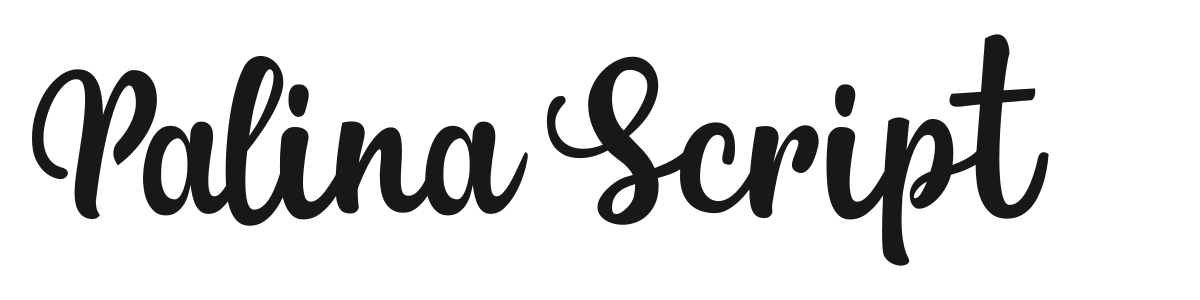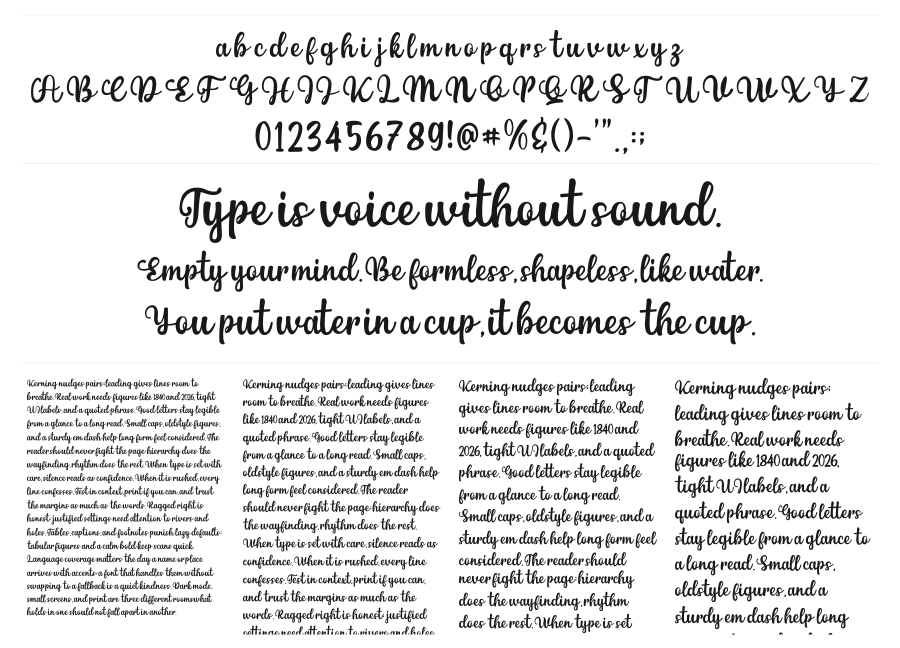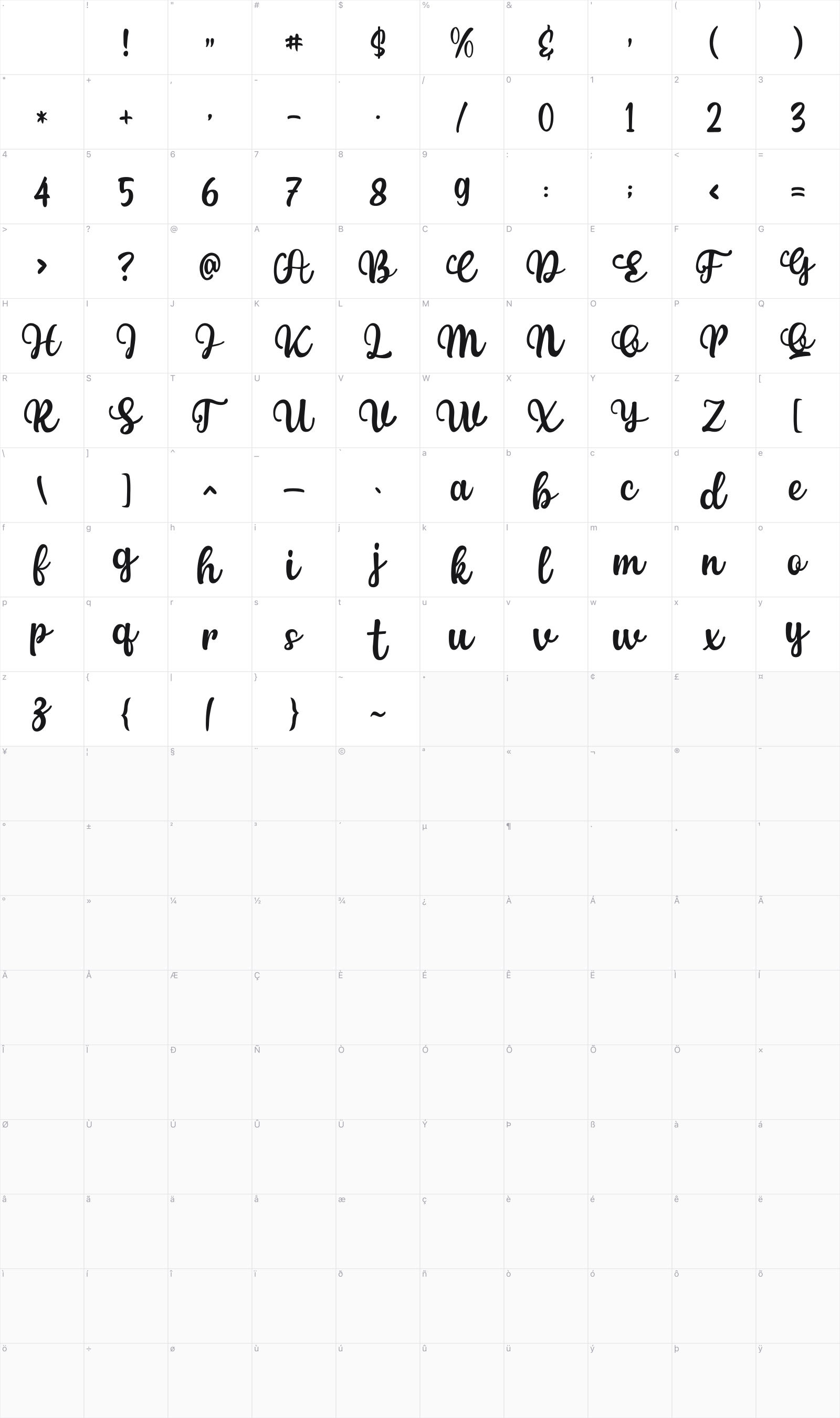
Palina Script
Palina Script is a bold, flowing casual script with a warm handwritten quality and smooth connected strokes. The generous loops and softly rounded terminals give it an approachable, artisan feel without sacrificing legibility at display sizes. It sits naturally in branding for food, beauty, and lifestyle where personality matters.